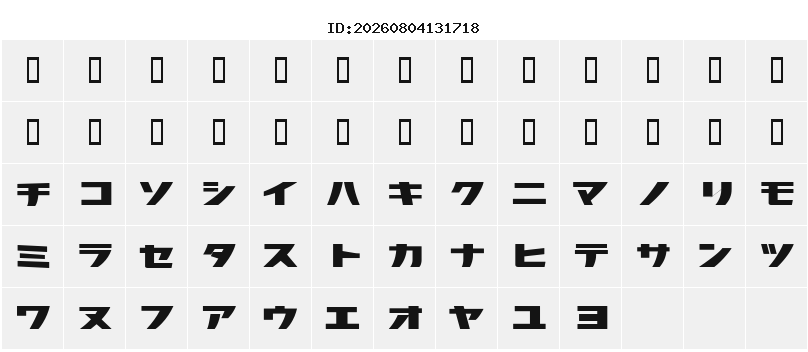
Nippon Preview
• Font Name: Nippon
• Font Style: Bold 2.0
• Font ID: Macromedia Fontographer 4.1.3 Nippon Bold 2.0
• Full Font Name: Nippon Bold 2.0
• Version: Macromedia Fontographer 4.1.3 1998.03.17
• PostScript Name: NipponBold20
• Character Count: 70
About Nippon.ttf
Nippon.ttf is a modern, elegant sans-serif font designed for ultimate readability and visual harmony. Perfect for branding, headlines, web design, and print materials.